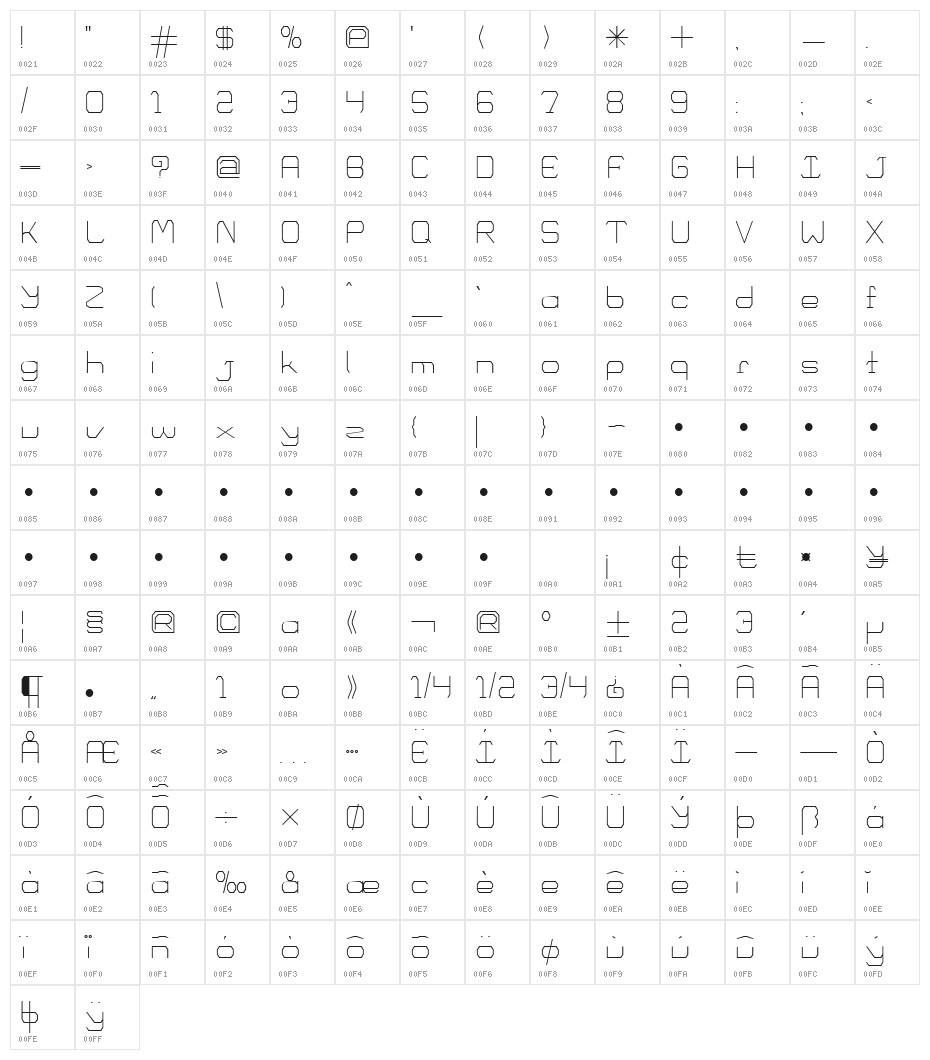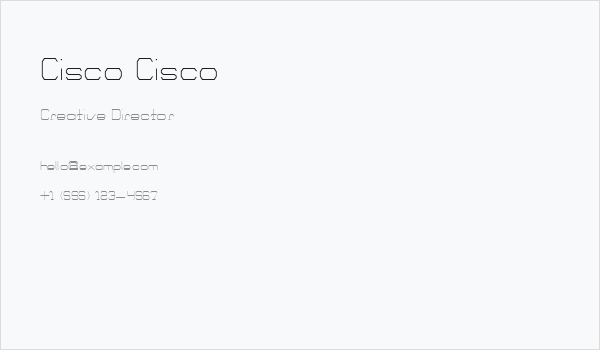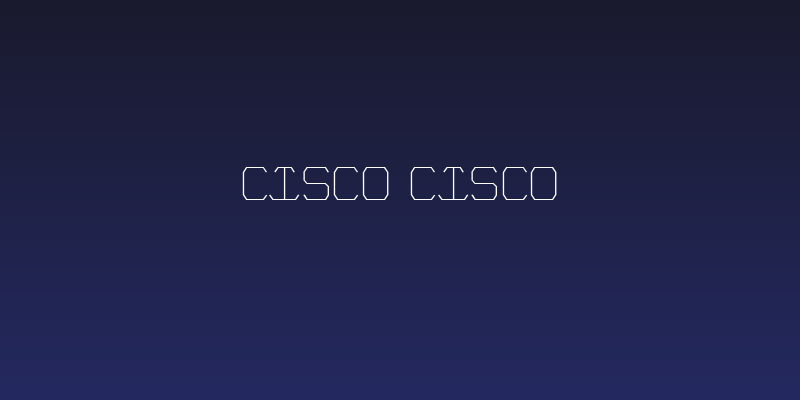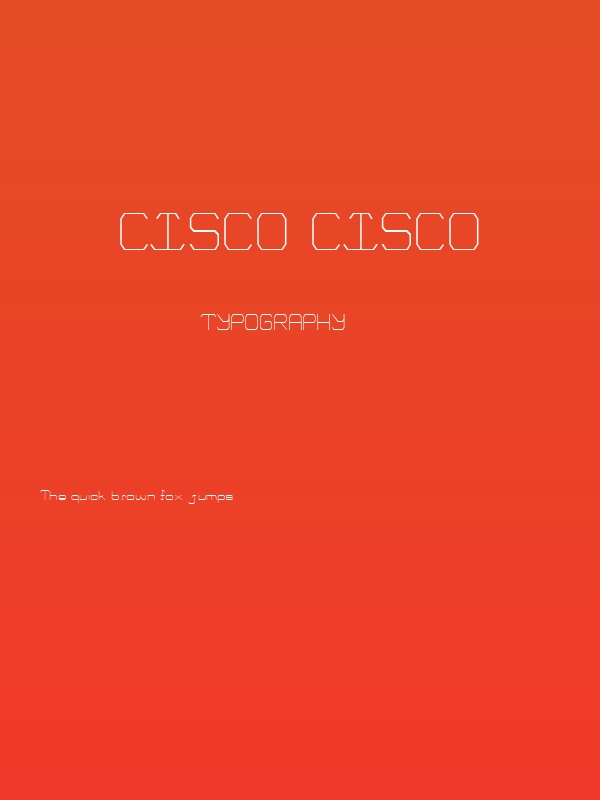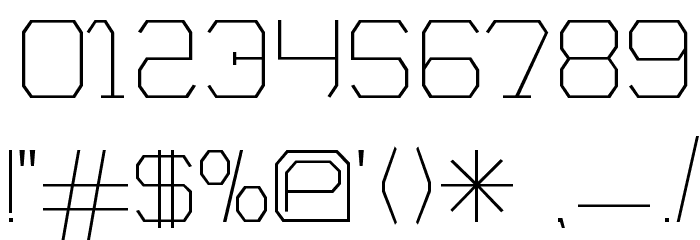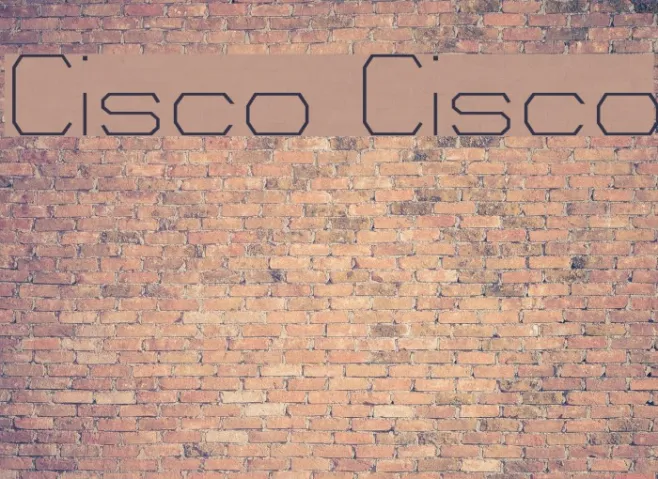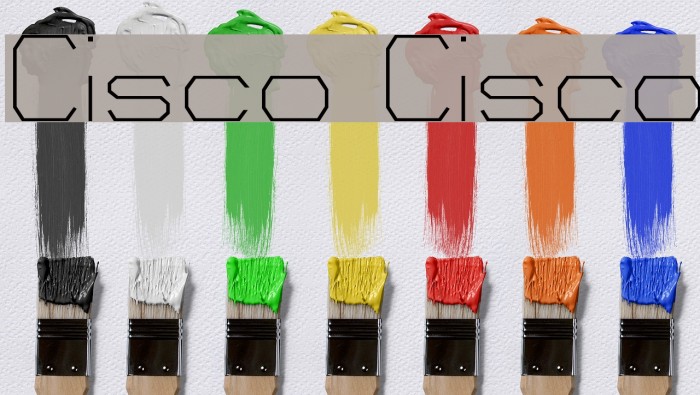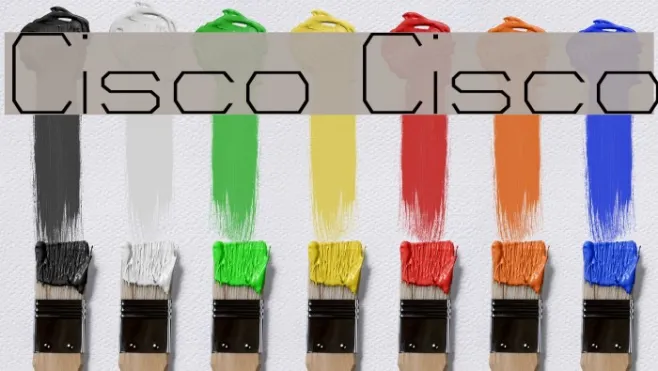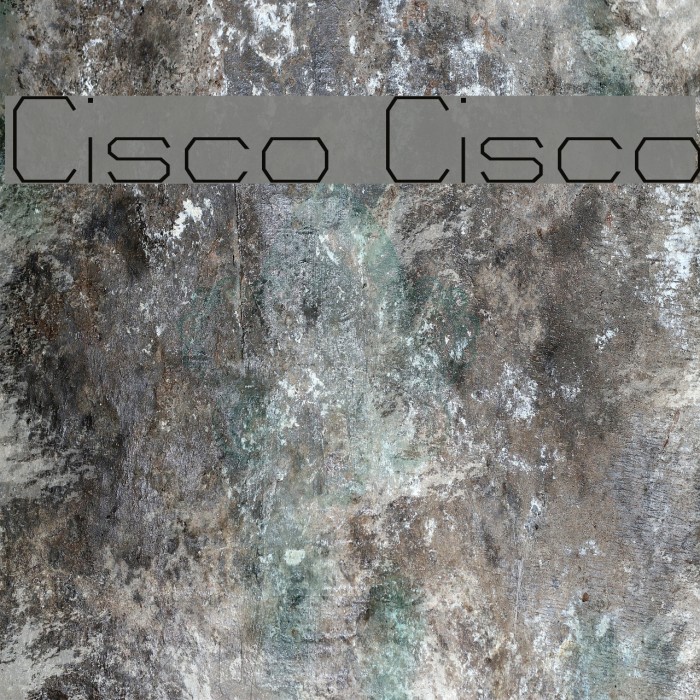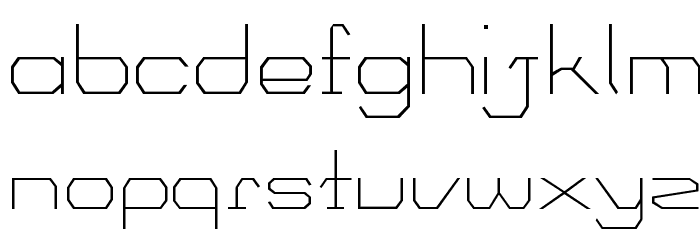
Cisco Cisco Font
Cisco Cisco Description
This font features a geometric and angular design, characterized by its straight lines and sharp corners. Each character is constructed with a consistent line weight, giving it a uniform appearance. The uppercase and lowercase letters maintain a similar structure, enhancing readability while retaining a unique style. Numbers and special characters follow the same geometric pattern, making the font cohesive across all symbols. Its modern and technical aesthetic makes it suitable for projects that require a futuristic or digital feel.
| Use Case | Logos, Headlines, Digital interfaces |
| Proposed Projects | Ideal for technology branding, digital interfaces, video game design, and futuristic-themed projects. |